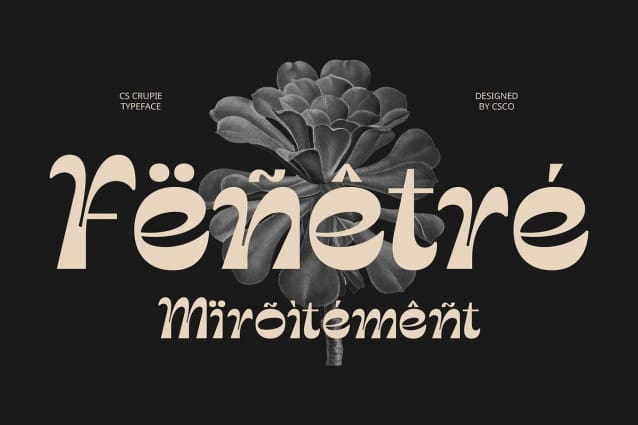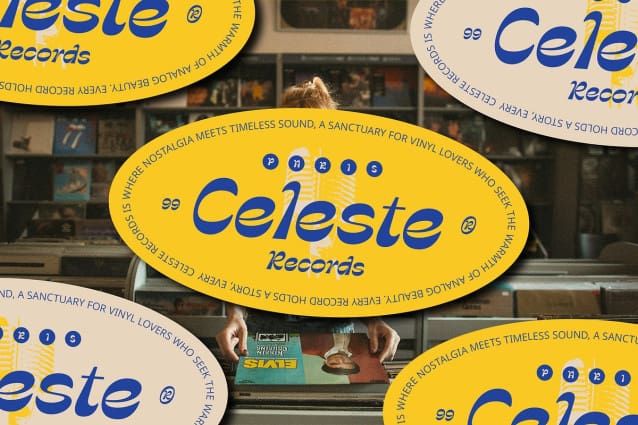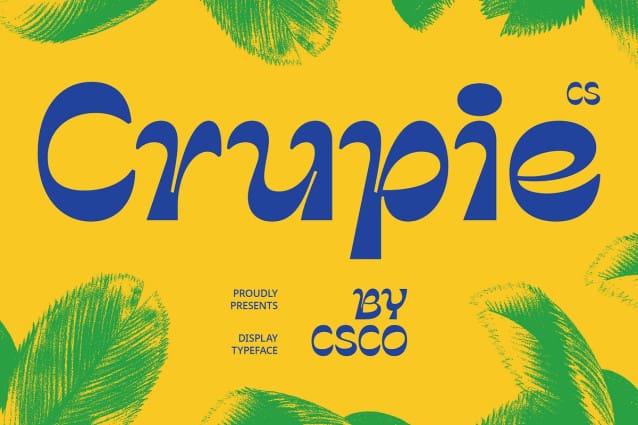
CS Crupie Font
CS Crupie Font is a reverse contrast display font that commands attention with its unique interplay of thick horizontal strokes and thin vertical lines. This striking contrast creates a dramatic visual effect, making it an excellent choice for emphasizing key elements in a design. Whether used for bold headlines, standout branding, or eye-catching posters, this font ensures high visibility with its unconventional weight distribution.
Retro Charm with a Nostalgic Feel Infused with a retro classic vibe, CS Crupie evokes the essence of vintage typography from the 60s to 80s. Inspired by typefaces used in nostalgic advertisements and posters, it brings a sense of familiarity and warmth to modern designs. This connection to the past makes it perfect for projects that want to blend historical influence with contemporary appeal, such as vintage branding, throwback event promotions, or editorial layouts with a touch of nostalgia.
Funky and Eccentric Letterforms CS Crupie stands out with its bold and quirky design elements. The eccentric curves and playful strokes add an extra layer of personality, giving the font a funky and unconventional character. These features make it perfect for creative projects that aim to break away from traditional aesthetics and embrace a more expressive, free-spirited approach. It’s ideal for brands and designers looking for something truly distinctive.